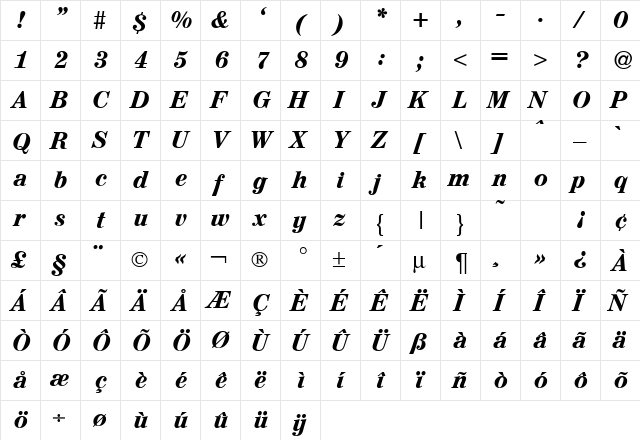
AugustMediumDB BoldItalic Font Preview
Design Context for AugustMediumDB Typeface
AugustMediumDB takes a measured approach to typography — its balanced proportions and neutral character make it a reliable workhorse for both digital and print work. The dynamic lean of this cut emphasises speed and emphasis in any layout. Its bold stroke weight gives it real presence on the page.
Pro Tip: Try AugustMediumDB for annotation and caption copy alongside an upright companion — the contrast in angle creates a dynamic but ordered typographic system.